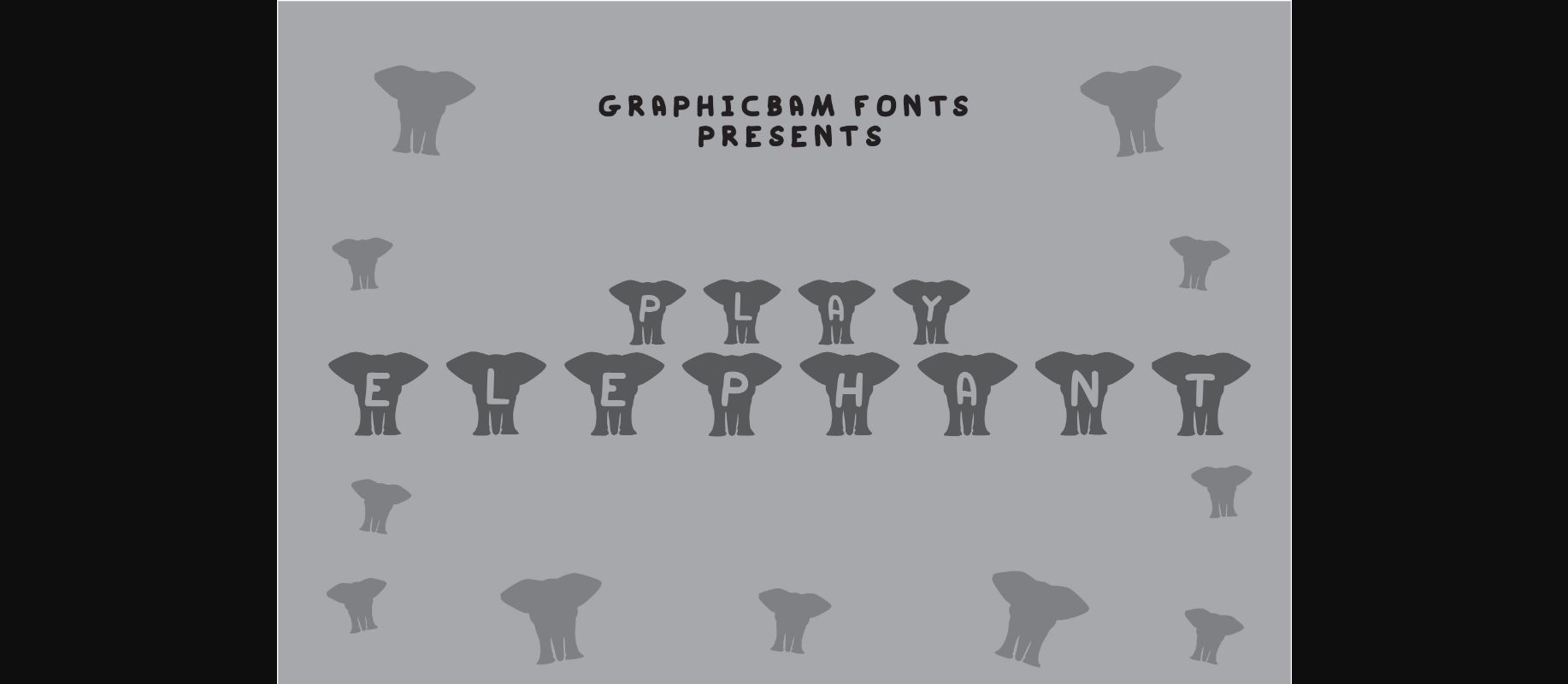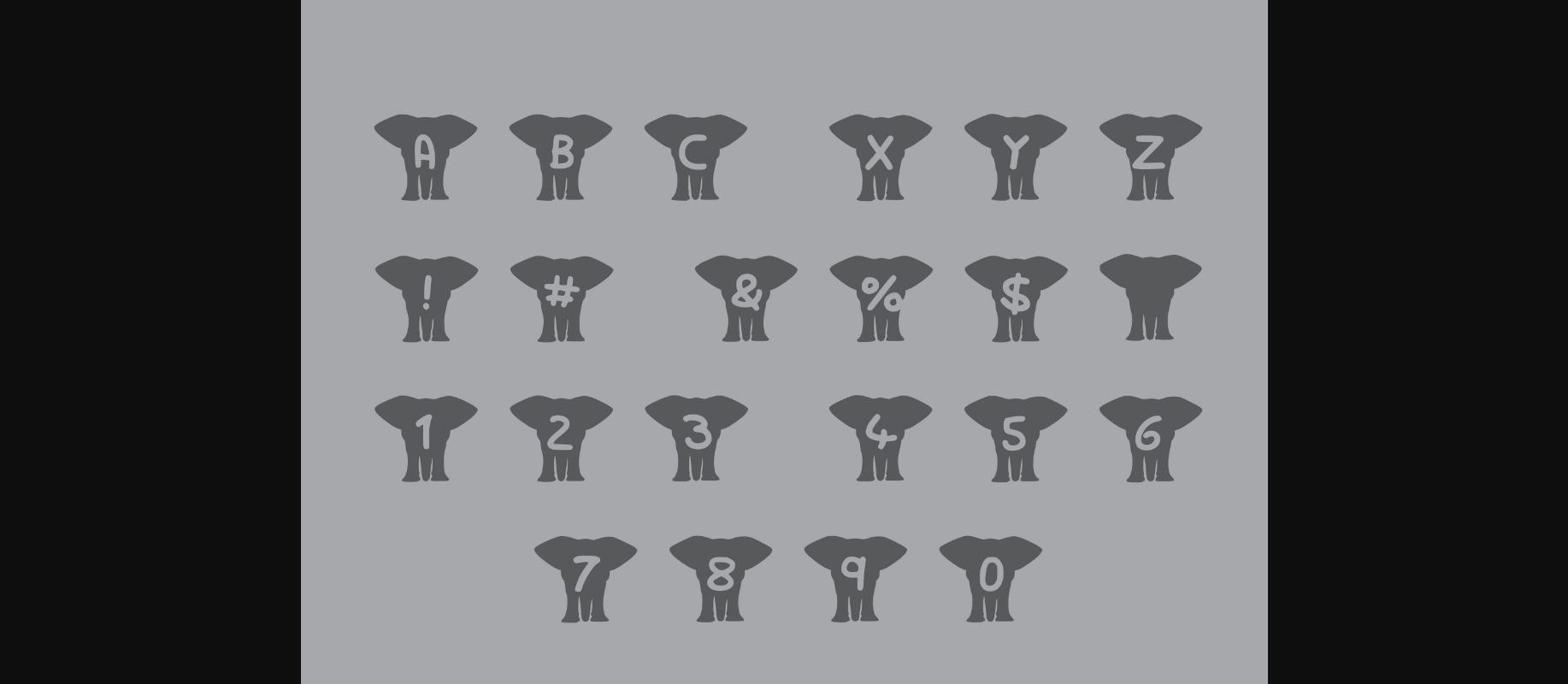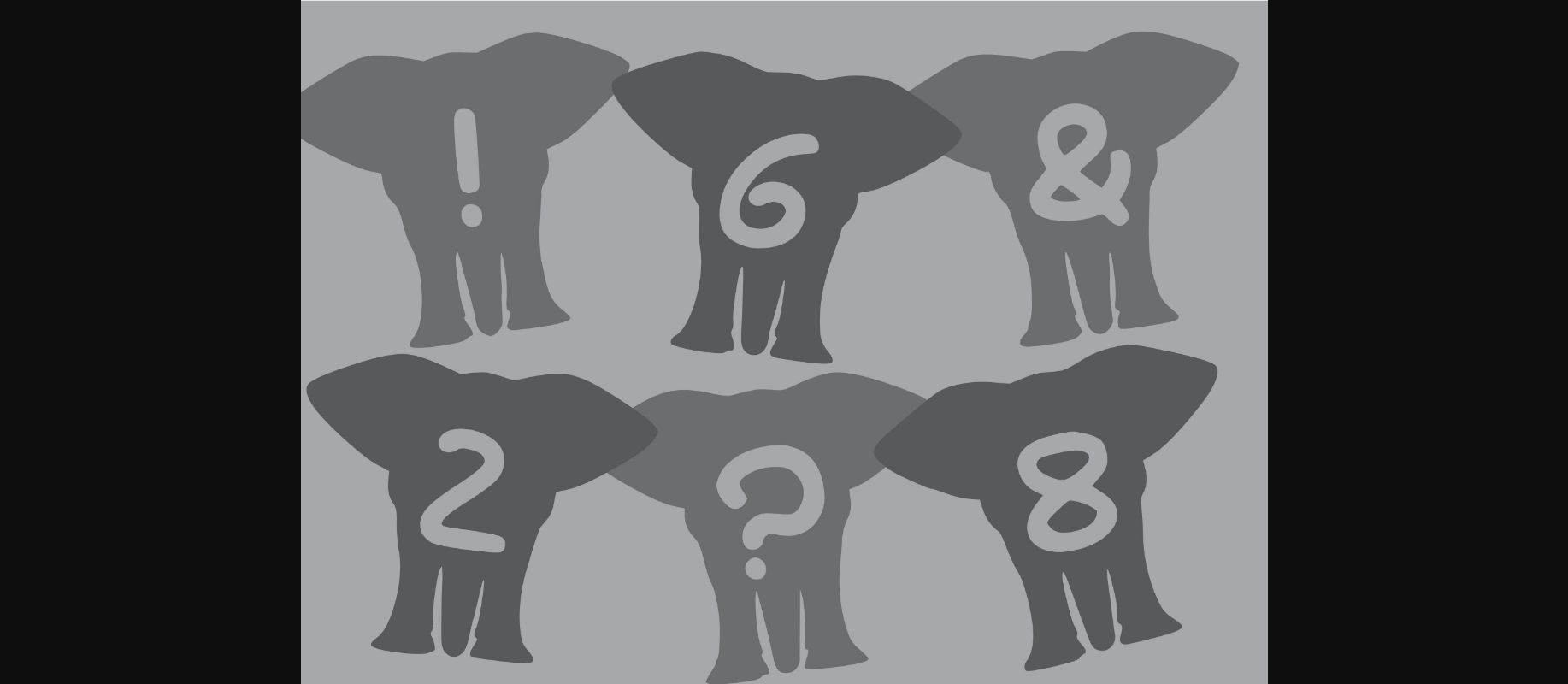
Play Elephant Font
About Play Elephant Font
Play Elephant is a cute decorative font that will bring safari vibes to your most creative ideas! Use it for book covers, zoo-themed projects, stationery items, school designs, and so much more.